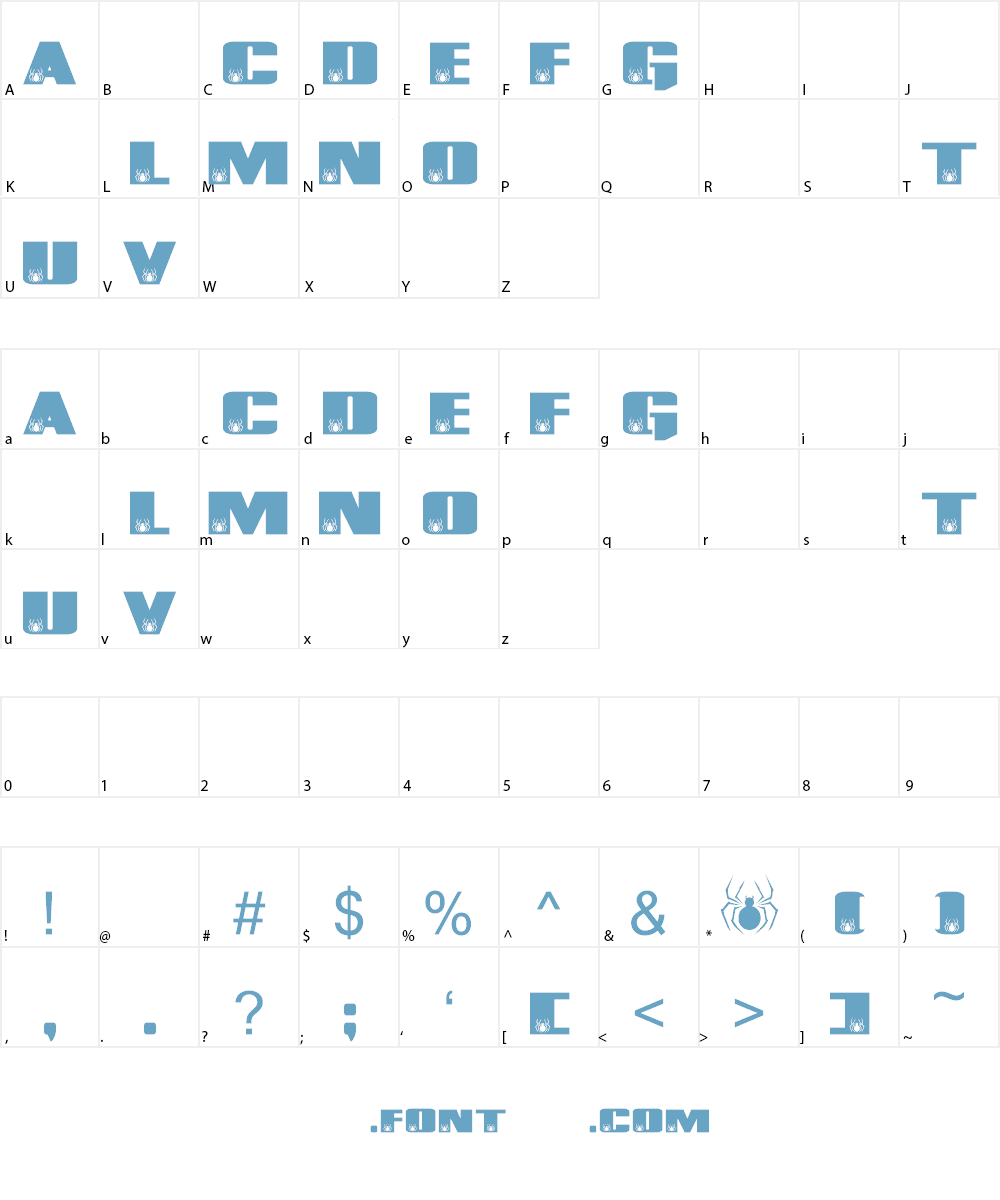
I created this fan-font typeface based on the latest prehistoric shark film of a similar name. This typeface the capitals have has similar wide stems and with narrow crossbars.